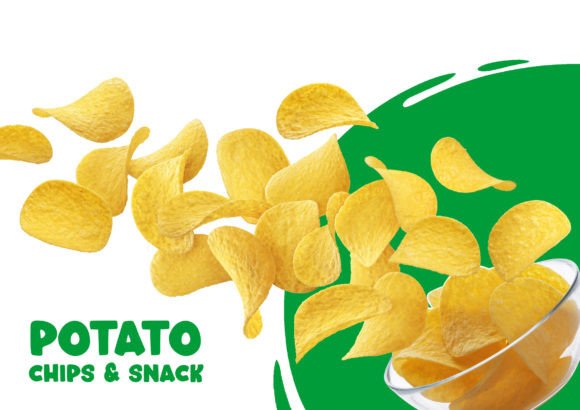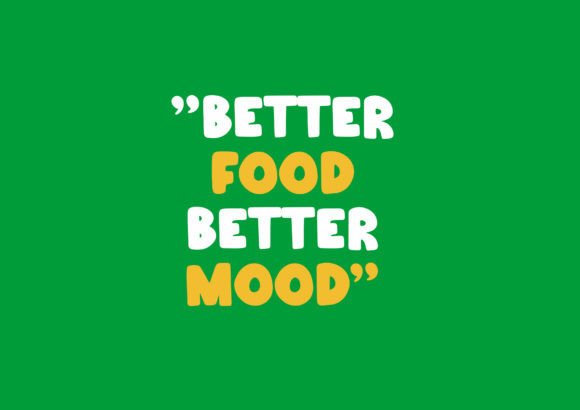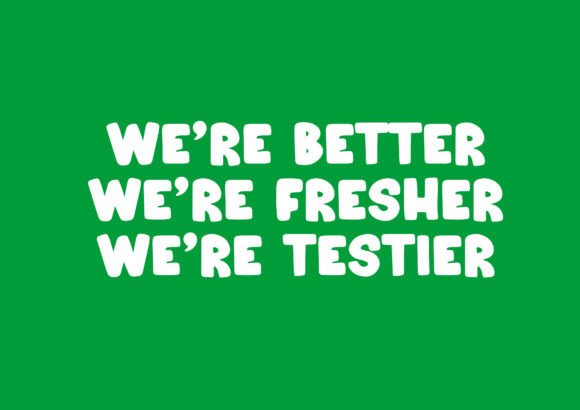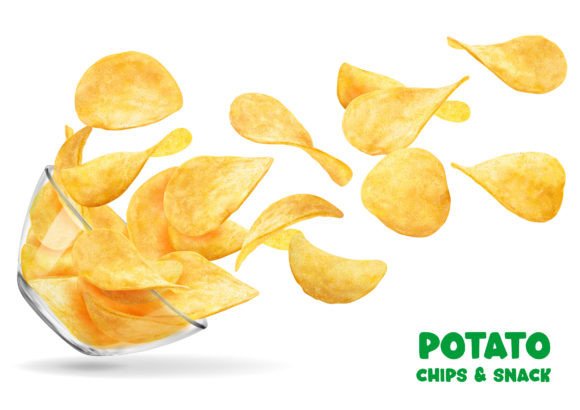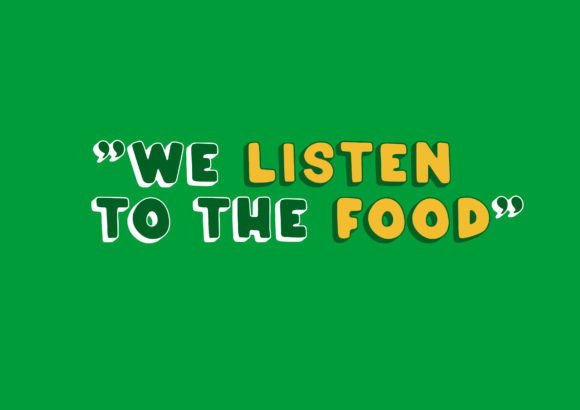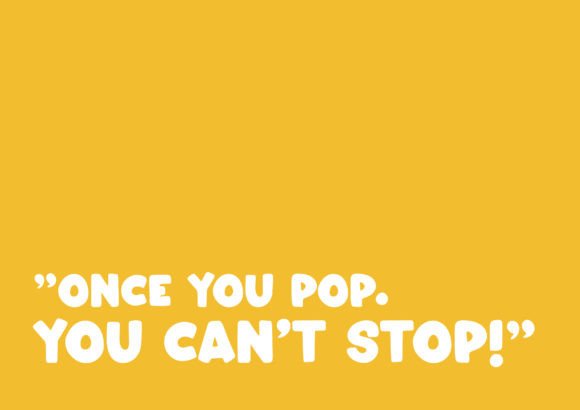
Introducing Crunch Chips Font: The Ultimate Display Font for Creative Designs
Are you tired of using the same old fonts in your designs? Do you want to add a touch of fun and playfulness to your creative projects? Look no further than Crunch Chips Font! This bold and cheerful display font is perfect for designers and crafters who want to make a statement with their typography.
What Makes Crunch Chips Font So Special?
Crunch Chips Font is a unique and eye-catching typeface that is sure to grab attention. Its chubby characters and lighthearted nature make it a must-have in your fonts library. The font’s playful design is perfect for creating fun and engaging designs that showcase your creative and playful side.
Key Features of Crunch Chips Font
- Fun and Bold Design: Crunch Chips Font features a bold and cheerful design that is sure to make your designs stand out.
- Chubby Characters: The font’s chubby characters add a touch of playfulness and whimsy to your designs.
- Lighthearted Nature: The font’s lighthearted nature makes it perfect for creating fun and engaging designs.
- Display Font: Crunch Chips Font is a display font, making it perfect for headlines, titles, and other display text.
Uses for Crunch Chips Font
Crunch Chips Font is a versatile typeface that can be used in a variety of design projects, including:
- Branding and Logo Design: Use Crunch Chips Font to create fun and engaging logos and brand identities.
- Signs and Posters: The font’s bold design makes it perfect for creating eye-catching signs and posters.
- Social Media Graphics: Use Crunch Chips Font to create fun and engaging social media graphics that showcase your brand’s personality.
- Packaging Design: The font’s playful design makes it perfect for creating eye-catching packaging designs.
Why Designers and Crafters Love Crunch Chips Font
Designers and crafters love Crunch Chips Font for its unique and playful design. The font’s bold and cheerful nature makes it perfect for creating fun and engaging designs that showcase their creative and playful side. Here are just a few reasons why designers and crafters love Crunch Chips Font:
- Easy to Read: Despite its bold design, Crunch Chips Font is easy to read, making it perfect for display text.
- Versatile: The font’s versatile design makes it perfect for use in a variety of design projects.
- Fun and Engaging: Crunch Chips Font is perfect for creating fun and engaging designs that showcase your brand’s personality.
How to Use Crunch Chips Font in Your Designs
Using Crunch Chips Font in your designs is easy! Here are a few tips to get you started:
- Use it as a Display Font: Crunch Chips Font is perfect for use as a display font, making it ideal for headlines, titles, and other display text.
- Experiment with Colors: The font’s bold design makes it perfect for use with bright and bold colors.
- Pair it with Other Fonts: Crunch Chips Font pairs well with other fonts, making it perfect for use in combination with other typefaces.
Crunch Chips Font is a fun, bold, and cheerful display font that is perfect for designers and crafters who want to add a touch of playfulness to their designs. Its chubby characters and lighthearted nature make it a must-have in your fonts library. With its versatile design and easy-to-read nature, Crunch Chips Font is perfect for use in a variety of design projects. So why wait? Download Crunch Chips Font today and start creating fun and engaging designs that showcase your creative and playful side!